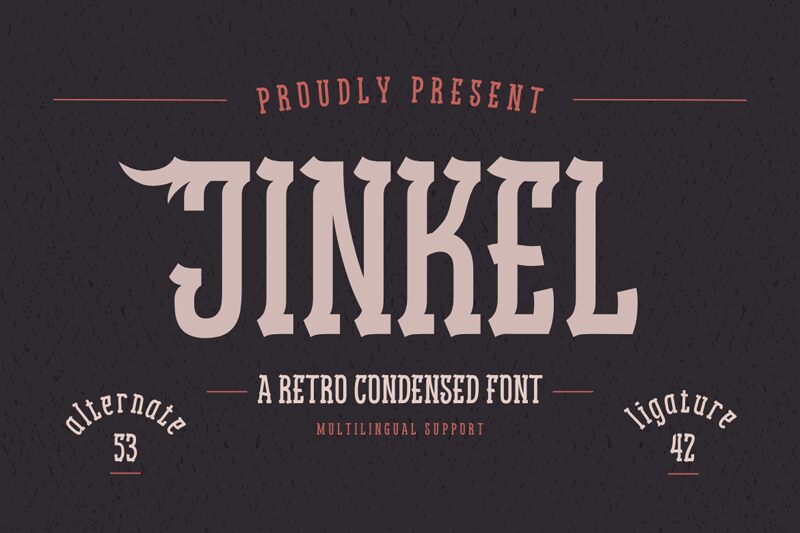
Jinkel, the captivating retro-inspired font created by Twinletter, is a true standout in the world of display typography. Its condensed, bold silhouette commands attention, exuding a distinct vintage charm that instantly evokes nostalgic sentiments. The sharp, angular letterforms blend seamlessly, creating a harmonious and eye-catching aesthetic that is both modern and timeless.
Jinkel's versatility shines through, making it a versatile choice for a wide range of design applications. From eye-catching headlines and impactful branding to vintage-inspired packaging and retro-themed digital experiences, this font's robust character lends itself effortlessly to diverse creative projects. Jinkel's unique personality can elevate the visual impact of any design, captivating audiences and leaving a lasting impression.